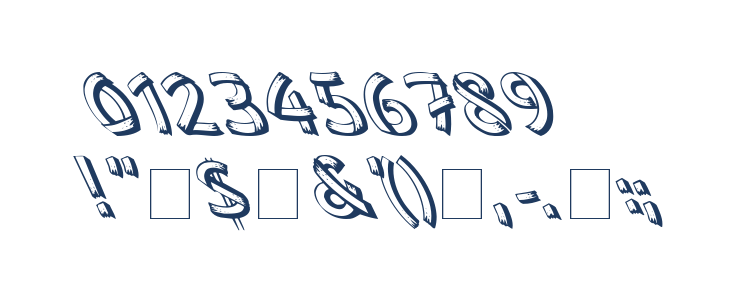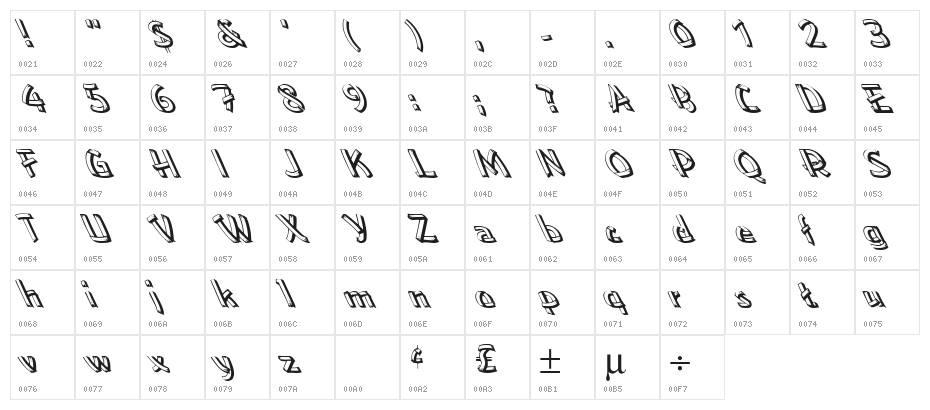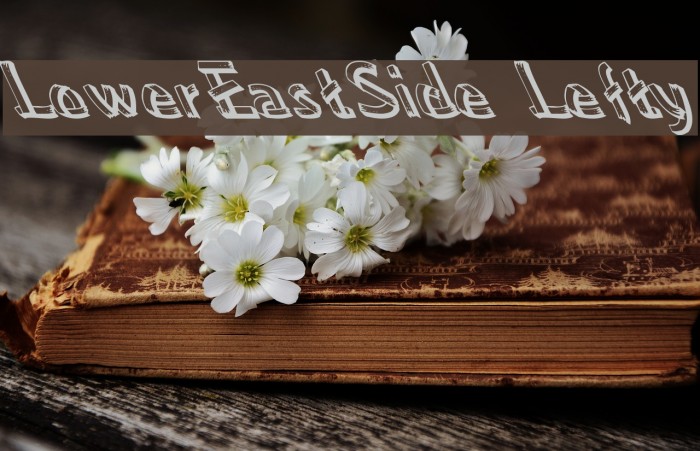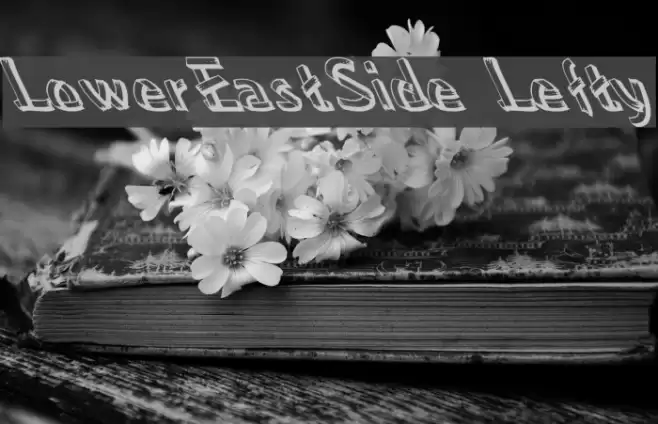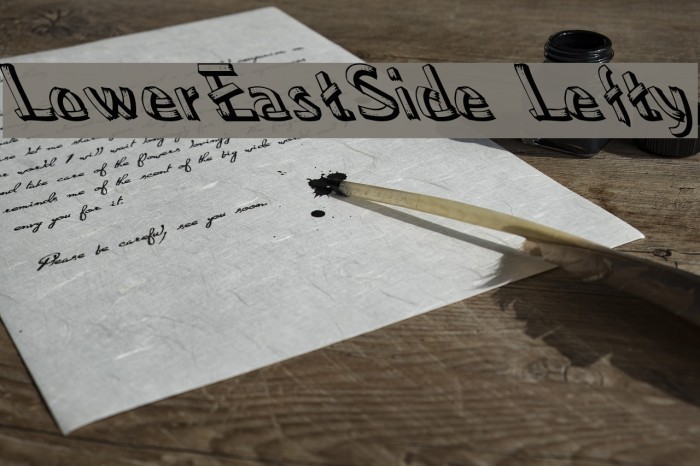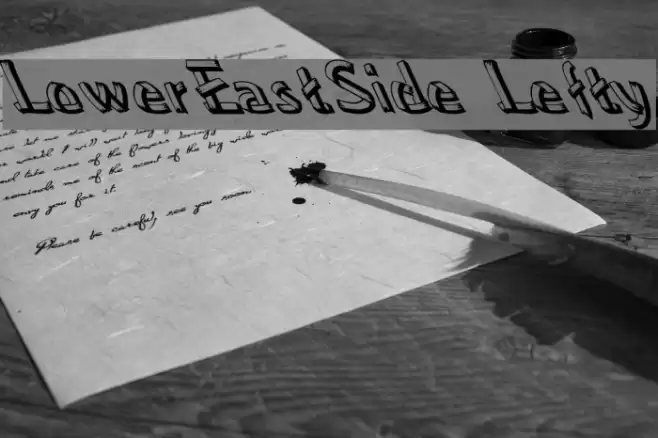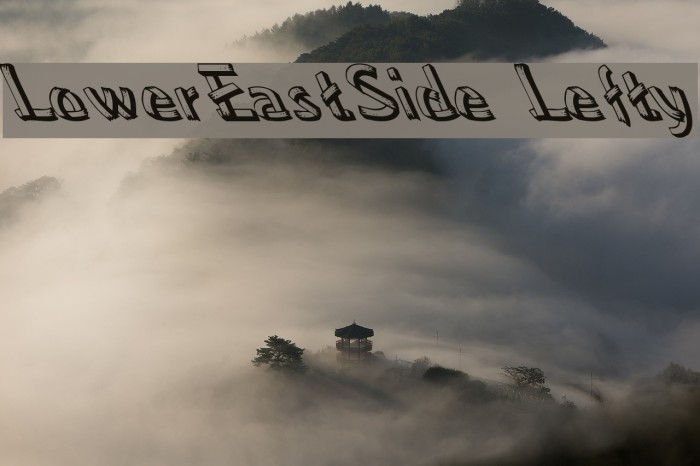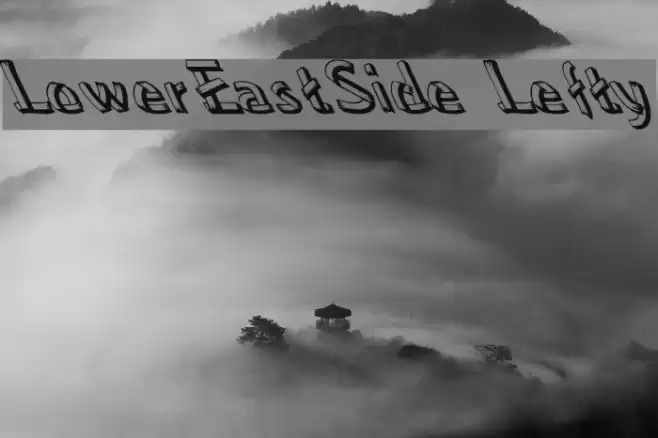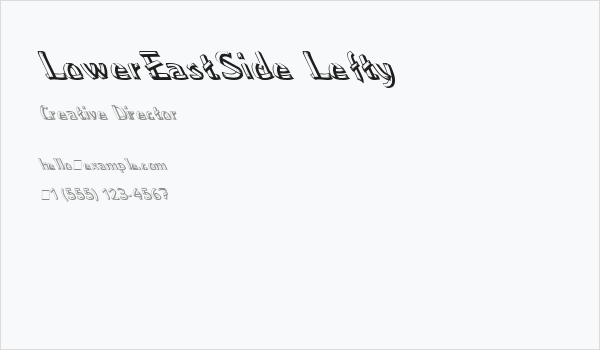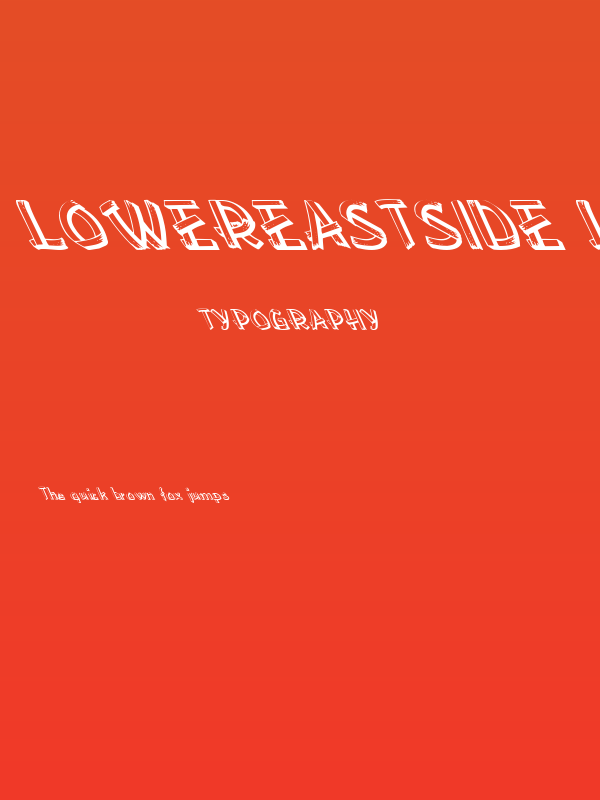
LowerEastSide Lefty Font
LowerEastSide Lefty Description
This font exhibits a bold and dynamic style with a hand-drawn, graffiti-like appearance. The characters are outlined with a thick, uneven stroke that gives them a three-dimensional effect. The letters have a playful and energetic vibe, with varying line thicknesses and a slightly slanted orientation that adds to the casual, street-art feel. The uppercase and lowercase letters maintain a consistent style, while the numbers and special characters are equally expressive, making the font suitable for eye-catching designs.
| Overall Style | Modern, Urban |
| Proposed Projects | Ideal for urban-themed posters, streetwear branding, album covers, and creative advertising campaigns. |